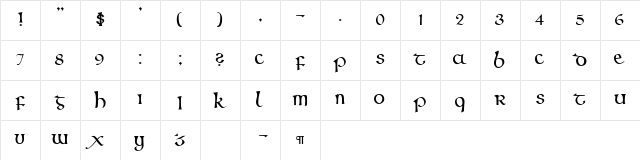
Design Context for CallifontsF61PostScript
CallifontsF61PostScript flows with the natural rhythm of handwritten lettering, making it ideal for designs that call for warmth and personal expression.
Font Pairing: Combine CallifontsF61PostScript with a simple geometric sans for maximum contrast - the tension between flowing curves and clean structure is a classic typographic pairing.
Pro Tip: Use CallifontsF61PostScript for short runs of text - names, titles, or taglines. Extended body copy in script faces tires the eye quickly.